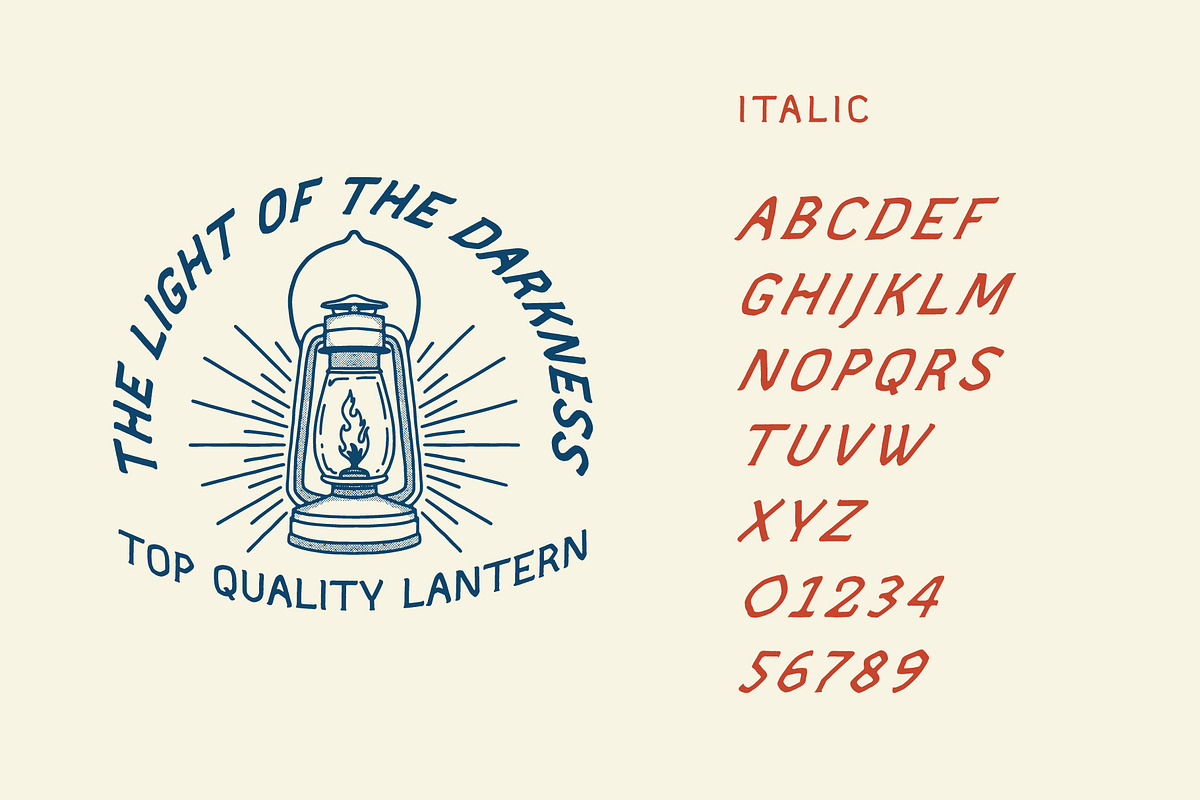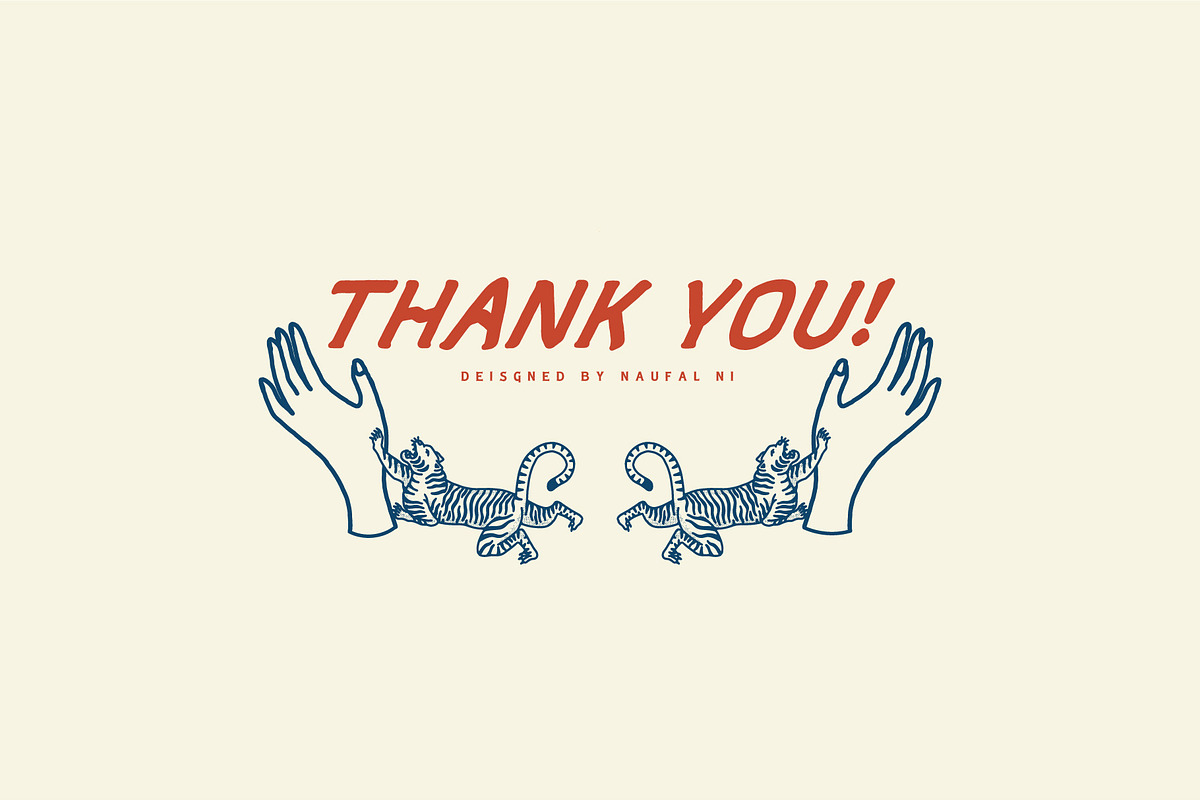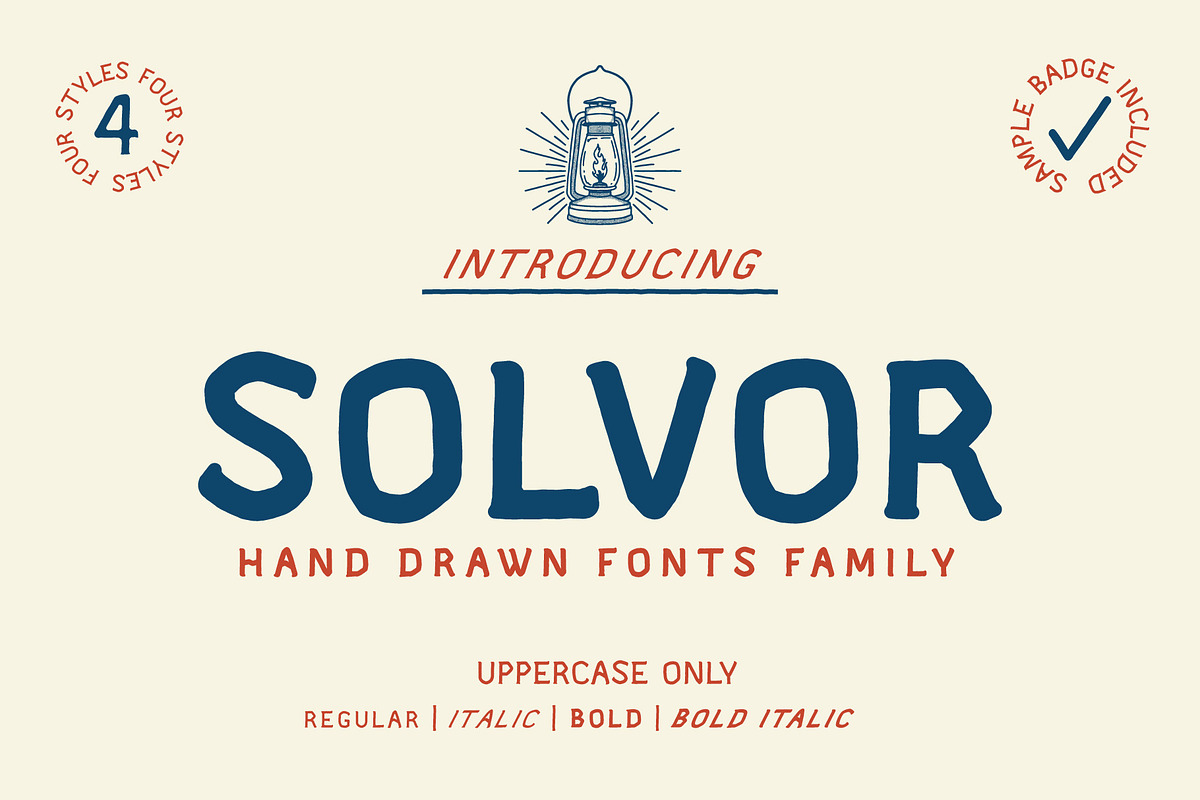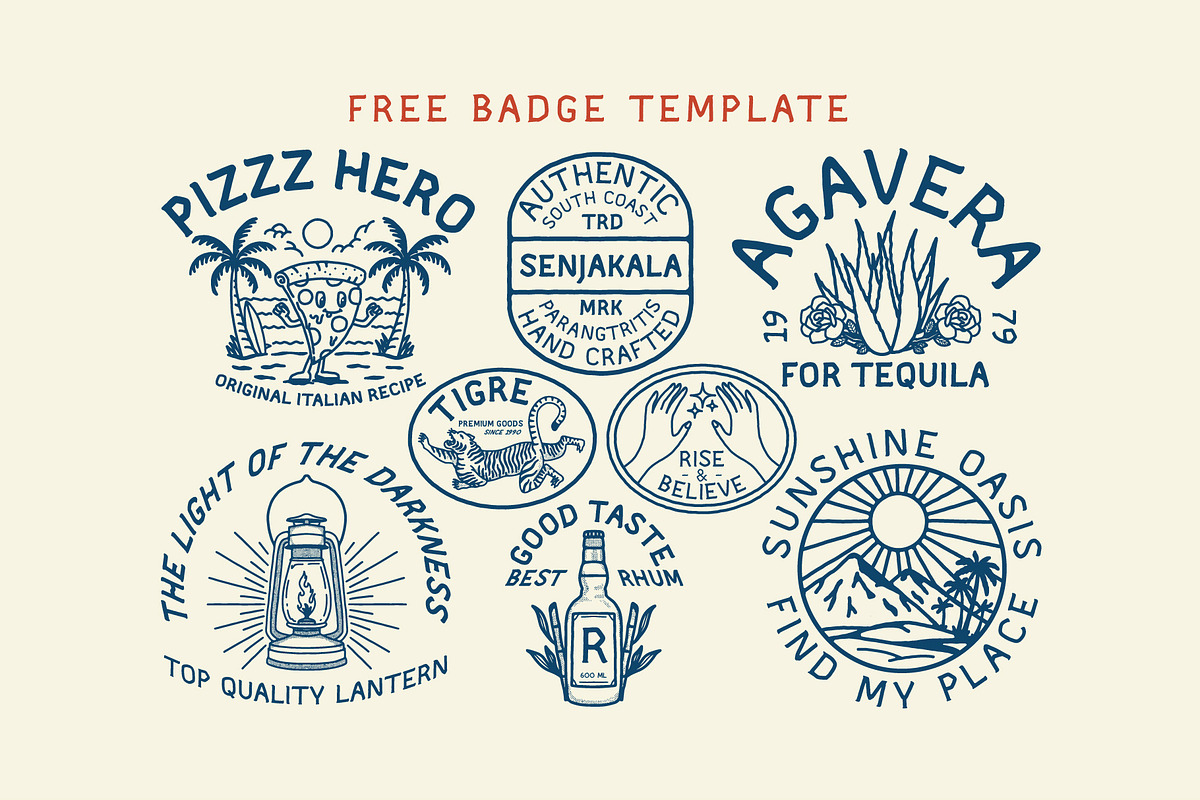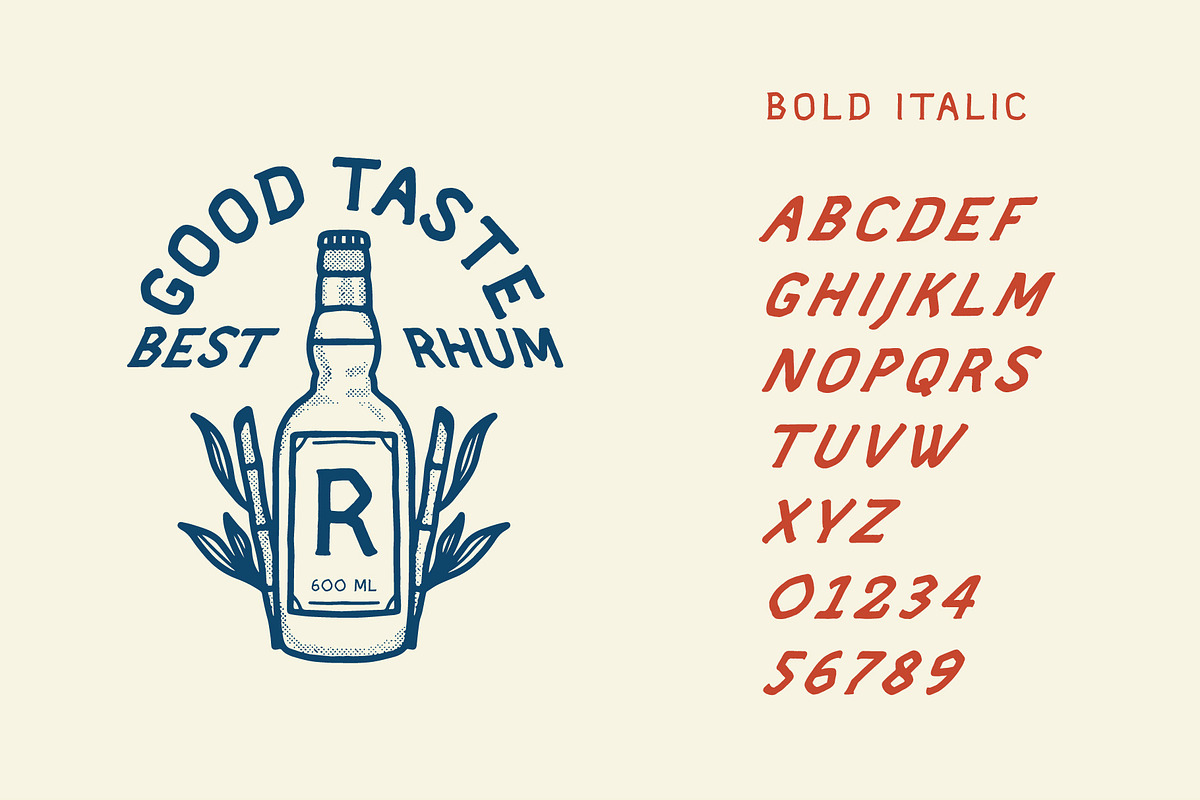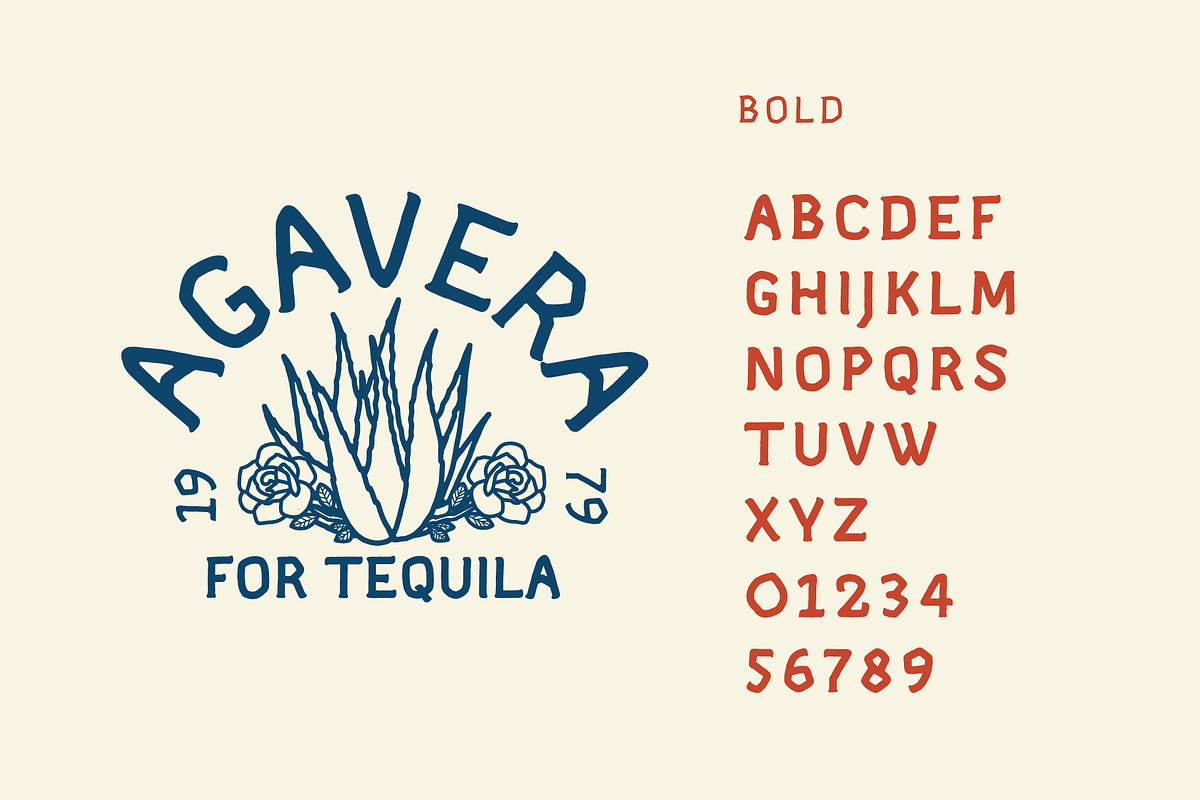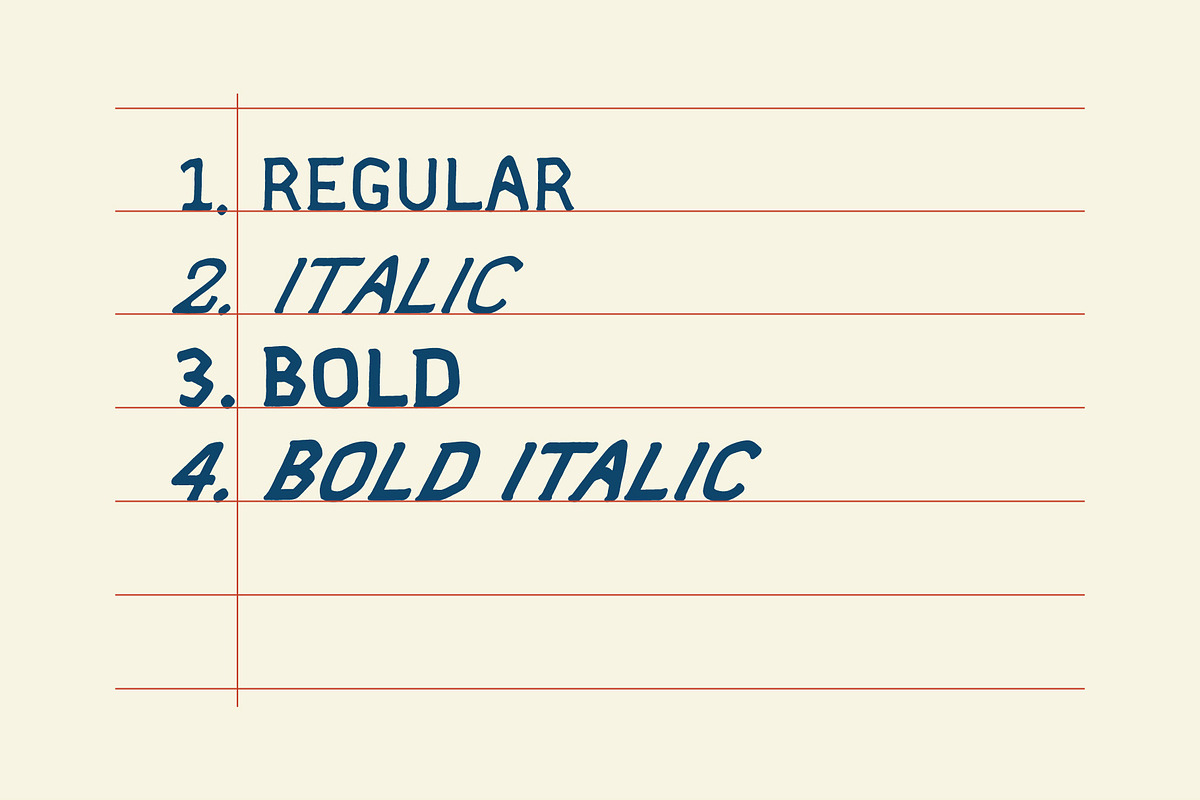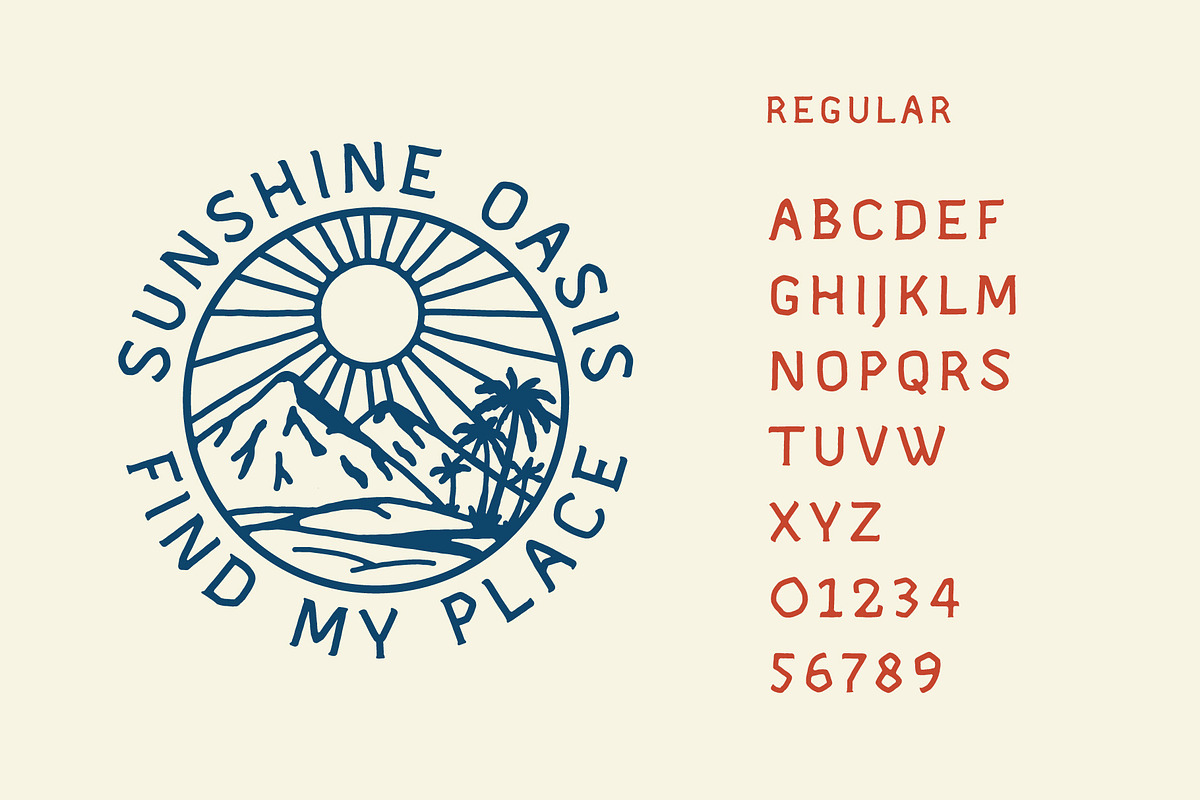
SOLVOR - Extra Badge Template
Introducing SOLVOR
SOLVOR is a thin serif font, and is inspired by minimalism. This font is very suitable as a display font as well as a font for books, because it has a high readability.
SOLVOR perfect for making logo designs, badges, packaging, posters, t-shirt designs and more. fonts give a handdrawn and minimalism feel to your design. Hope you like this font!